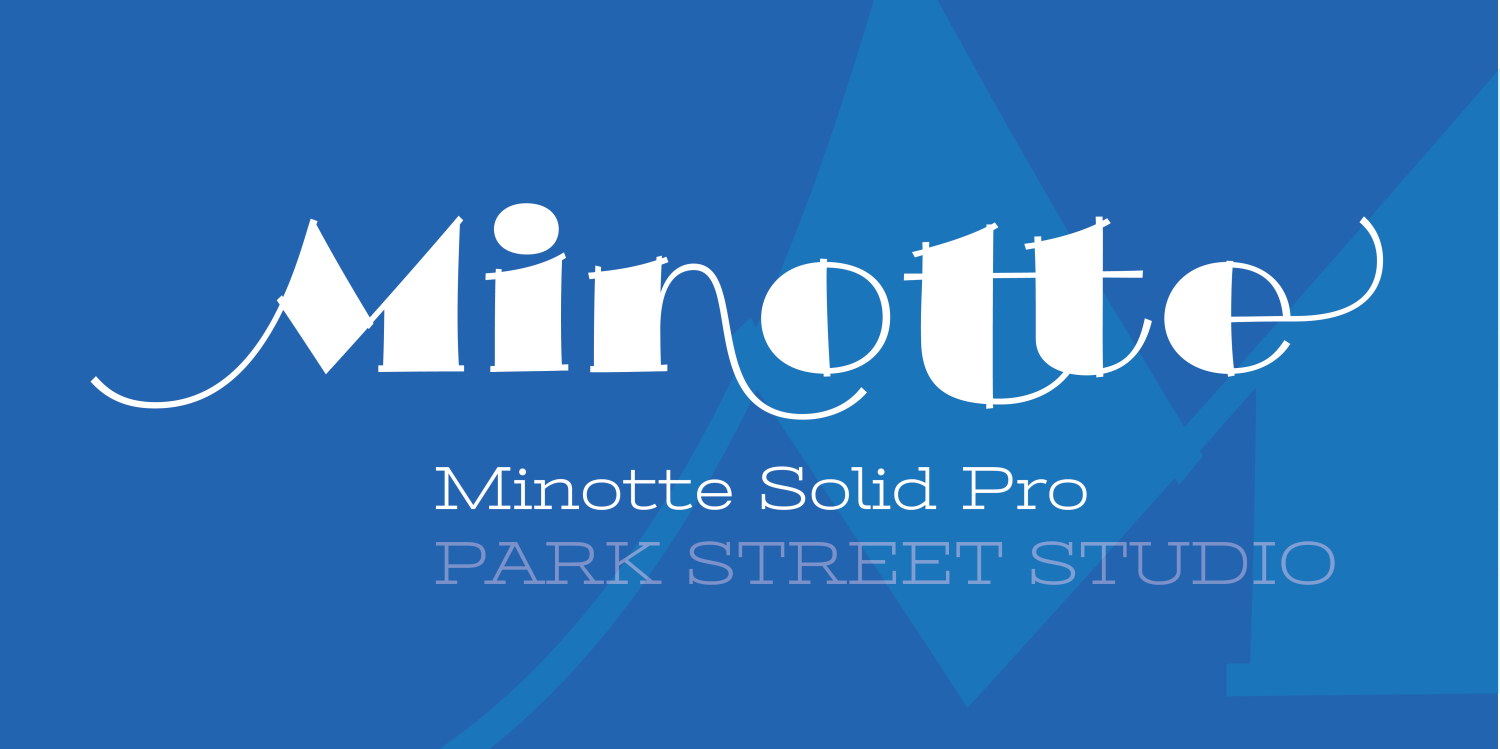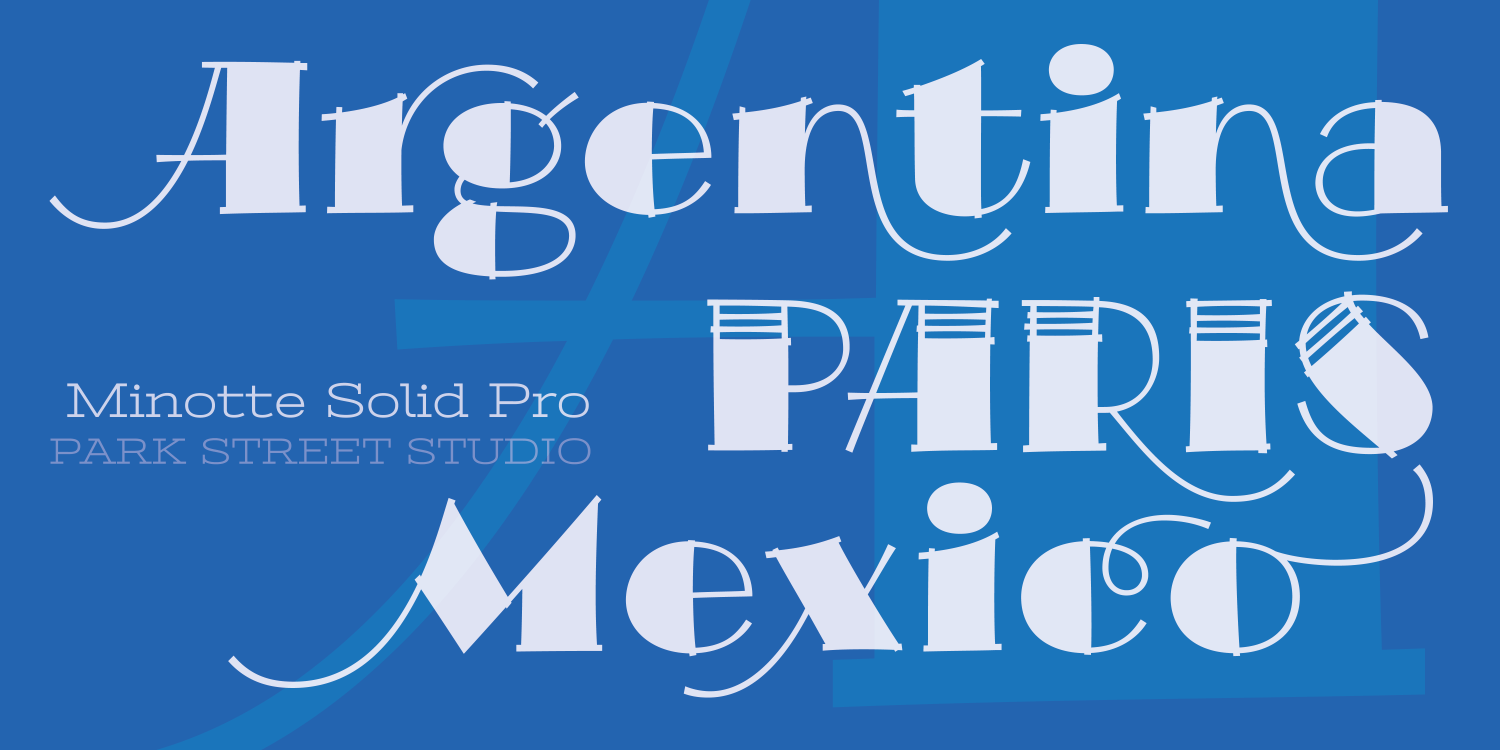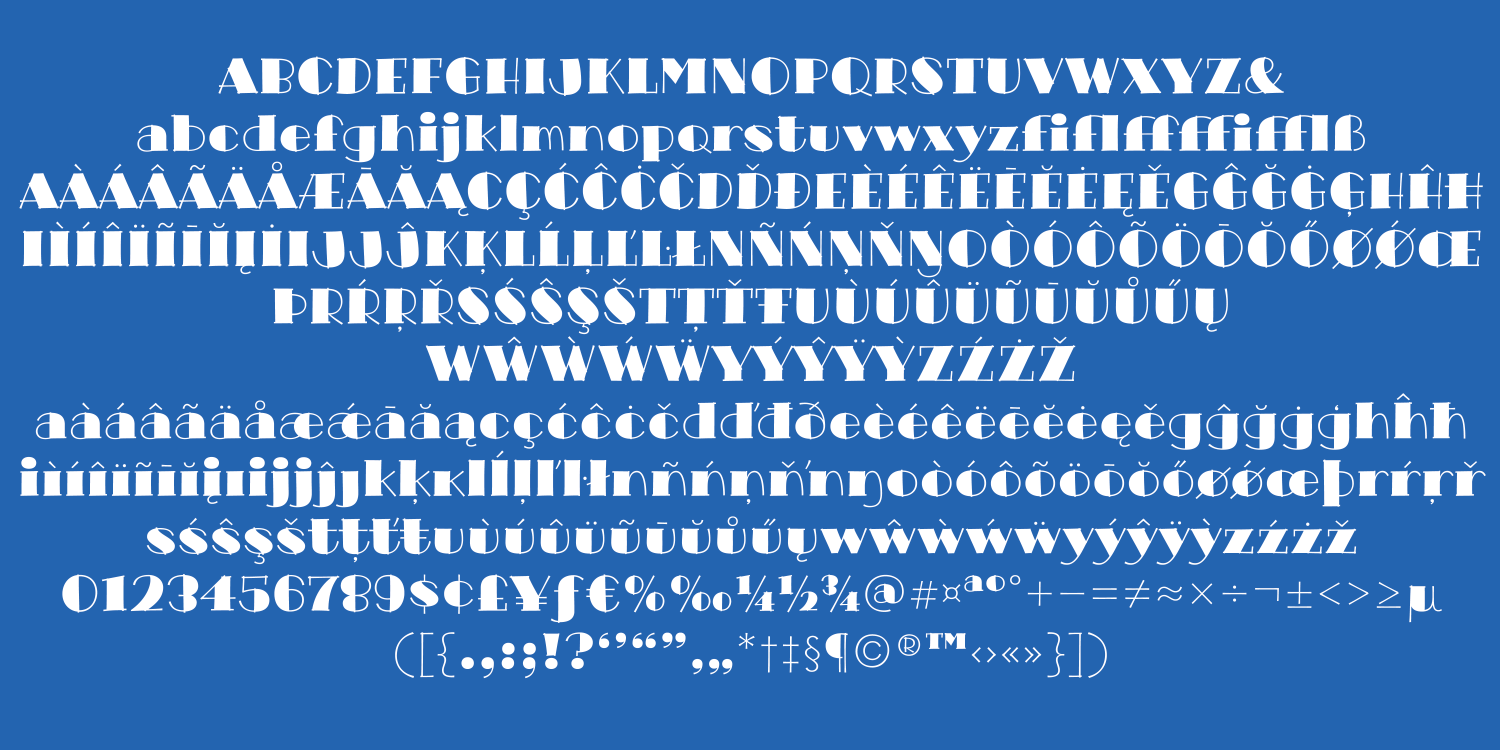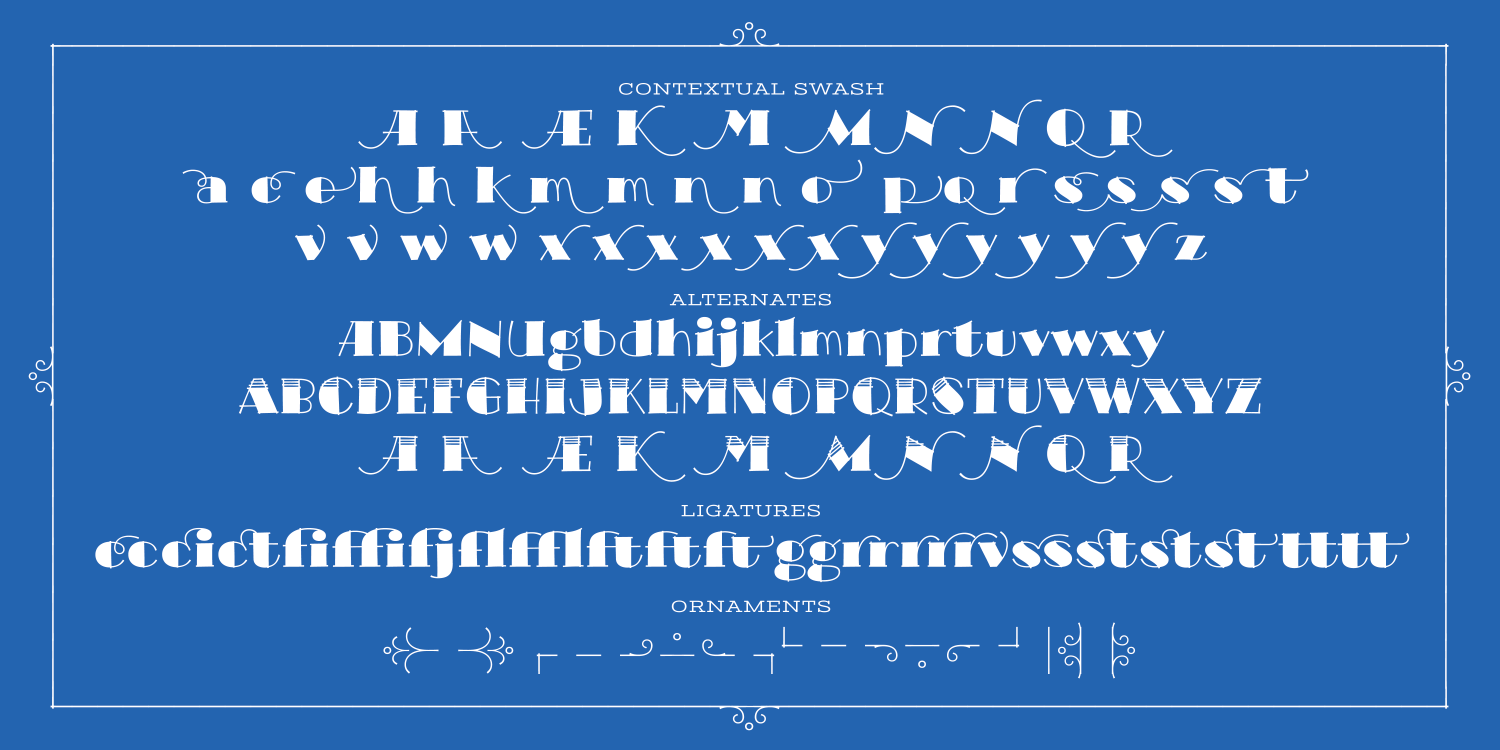
Minotte Solid Pro
Font Family by Park Street Studio
A solid version of original, Minotte Solid Pro has all the bells and whistles of Minotte Pro. By enabling OpenType features such as swashes, style sets, and contextual alternates, headlines and text set with Minotte Solid Pro will transform into unique combinations of initial, middle and final swash forms! There's also an alternate Cap set with a partial fill for even greater variety! Perfect for travel ad headlines, Minotte Solid Pro adds a unique, carefree touch.
Minotte Solid Pro contains these OpenType features: Contextual Swashes, Stylistic Alternates, Standard & Discretionary Ligatures, 6 Style Sets, Superiors & Inferiors, Fractions and Ornaments. Minotte Solid Pro supports an extended European character set.